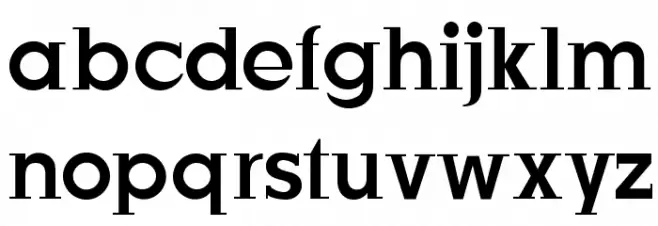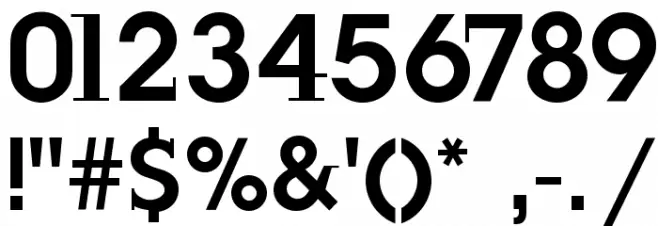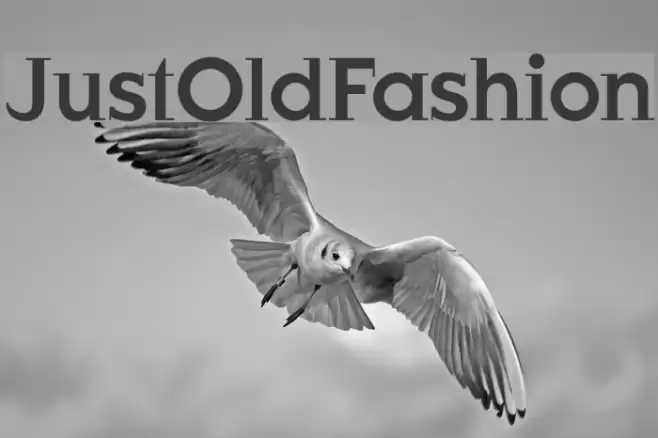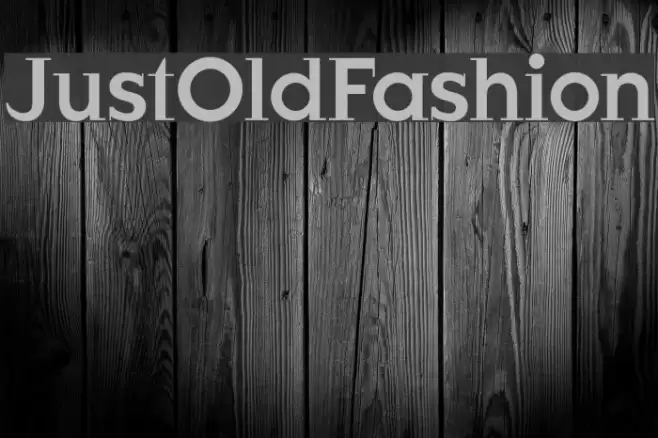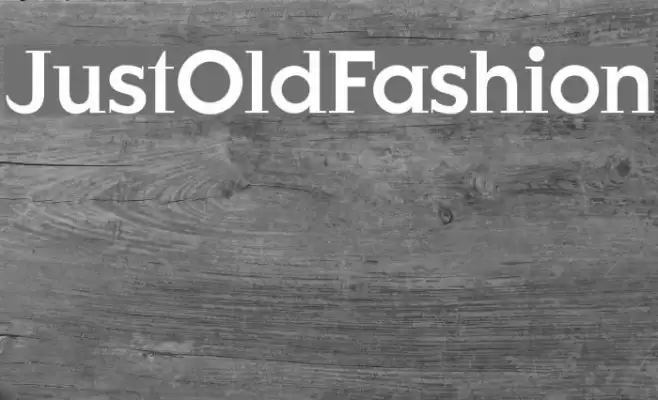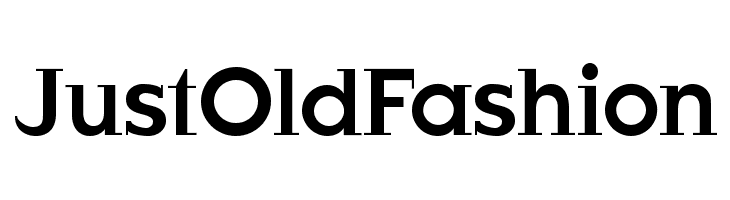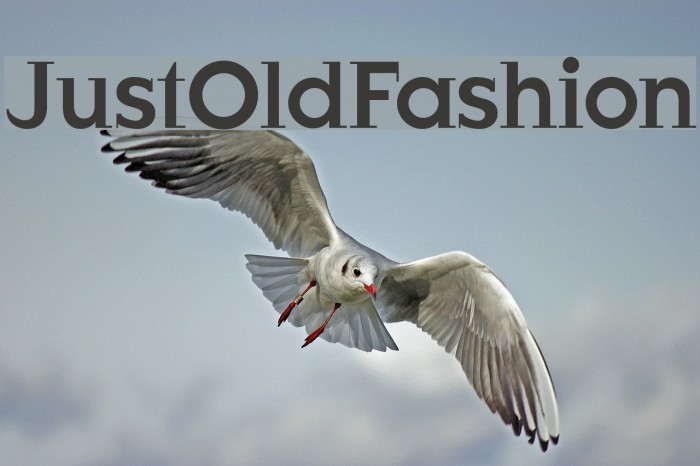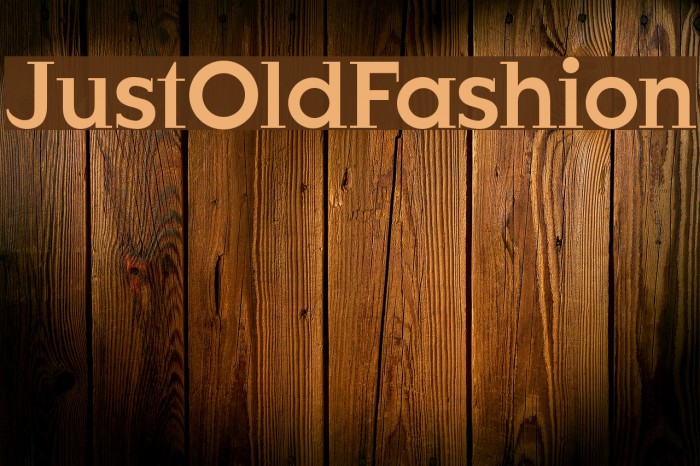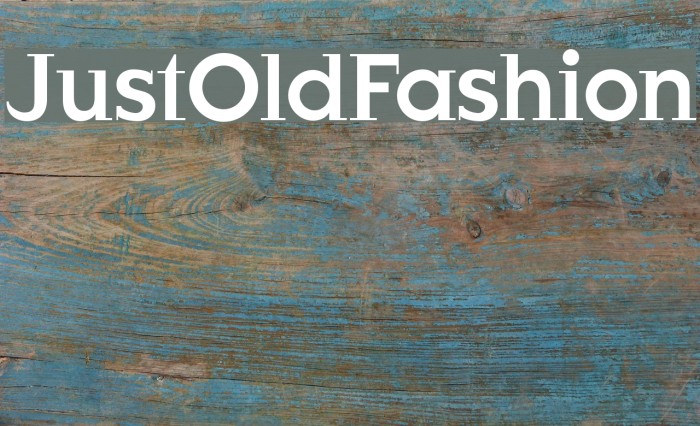
JustOldFashion Font
JustOldFashion Description
This font exhibits a classic serif style with a modern twist, characterized by its elegant and refined letterforms. The uppercase letters are bold and commanding, while the lowercase letters maintain a harmonious balance with slightly rounded edges. The numerals are clear and distinct, offering excellent readability. Special characters are well-integrated, maintaining the overall aesthetic. The font's design is versatile, making it suitable for a variety of applications where a touch of sophistication is desired.
A classic serif font with a modern, elegant style.
- Proposed Projects: Ideal for editorial design, book covers, branding, and formal invitations.
- Category: Serif
- Overall Style: Classic